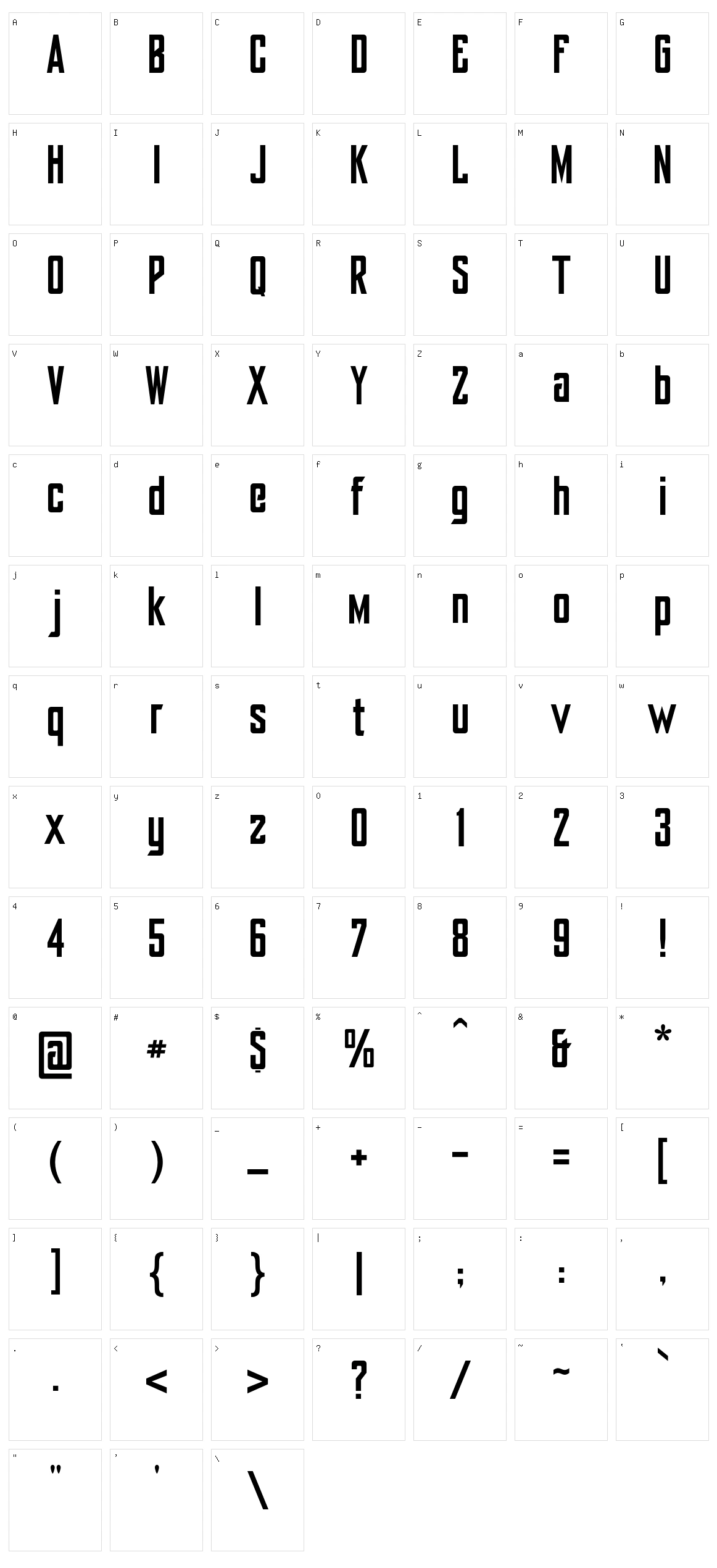
York Baile Hill is the surprisingly popular York Whiteletter font, freed from the surly bonds of its banner background. With the addition of lowercase and extended language support, York Baile Hill is a versatile display face that hasnât forgotten its wood type origins.